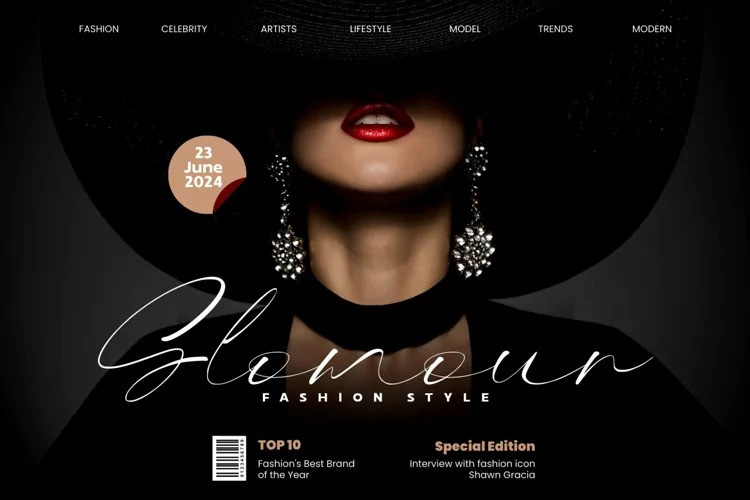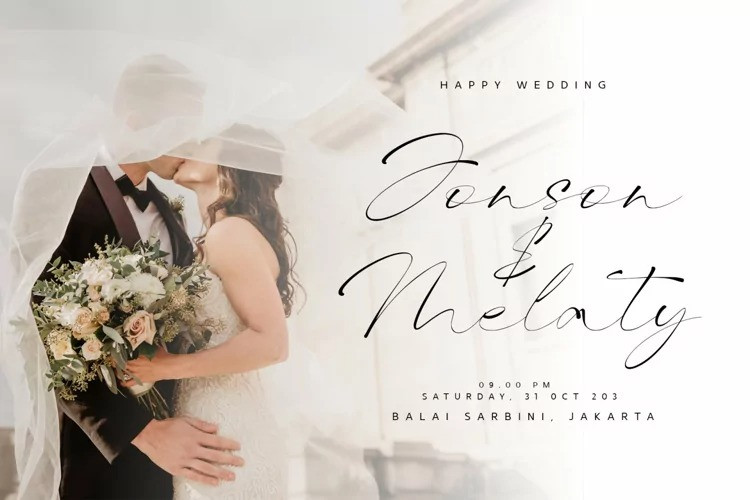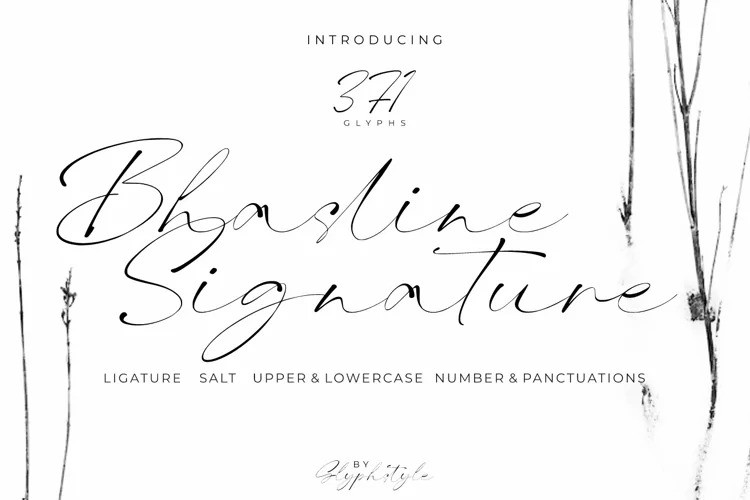
Bhasline Font
Bhasline Font is a natural signature style font. looks like writing in ballpoint ink.
Bhasline is perfect for branding projects, logos, wedding designs, social media posts, advertisements, product packaging, product designs, labels, photography, watermarks, invitations, stationery and any project that requires a signature natural font.